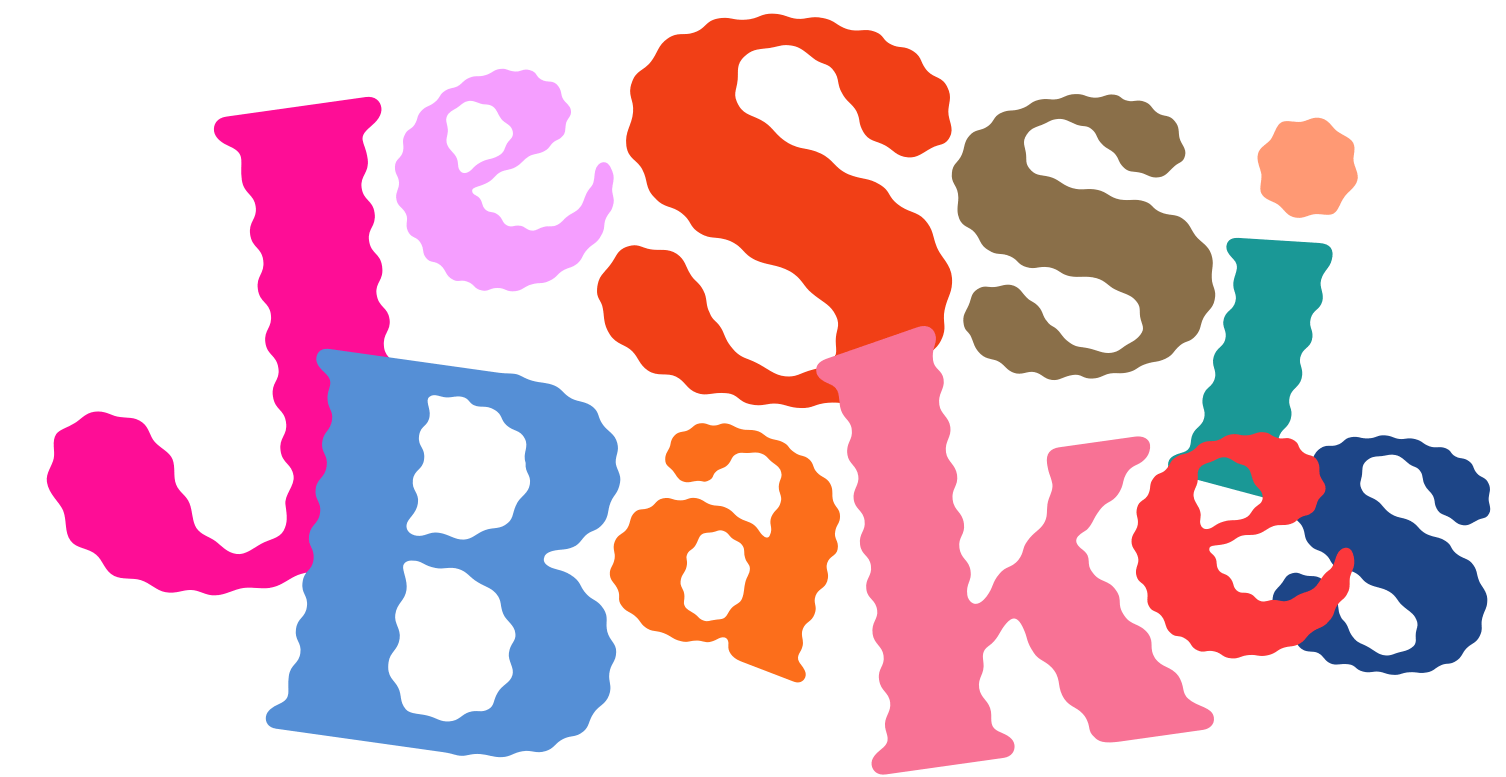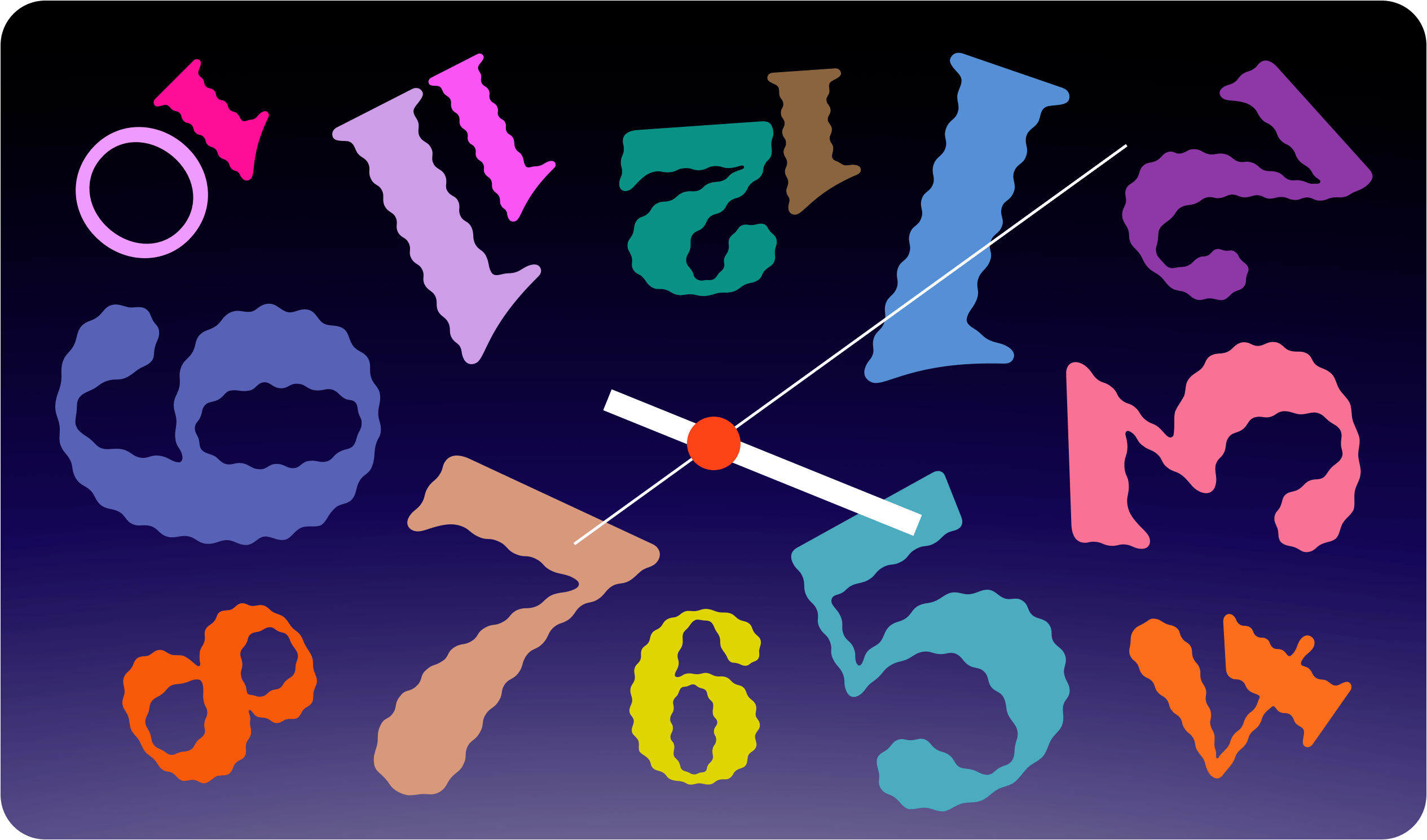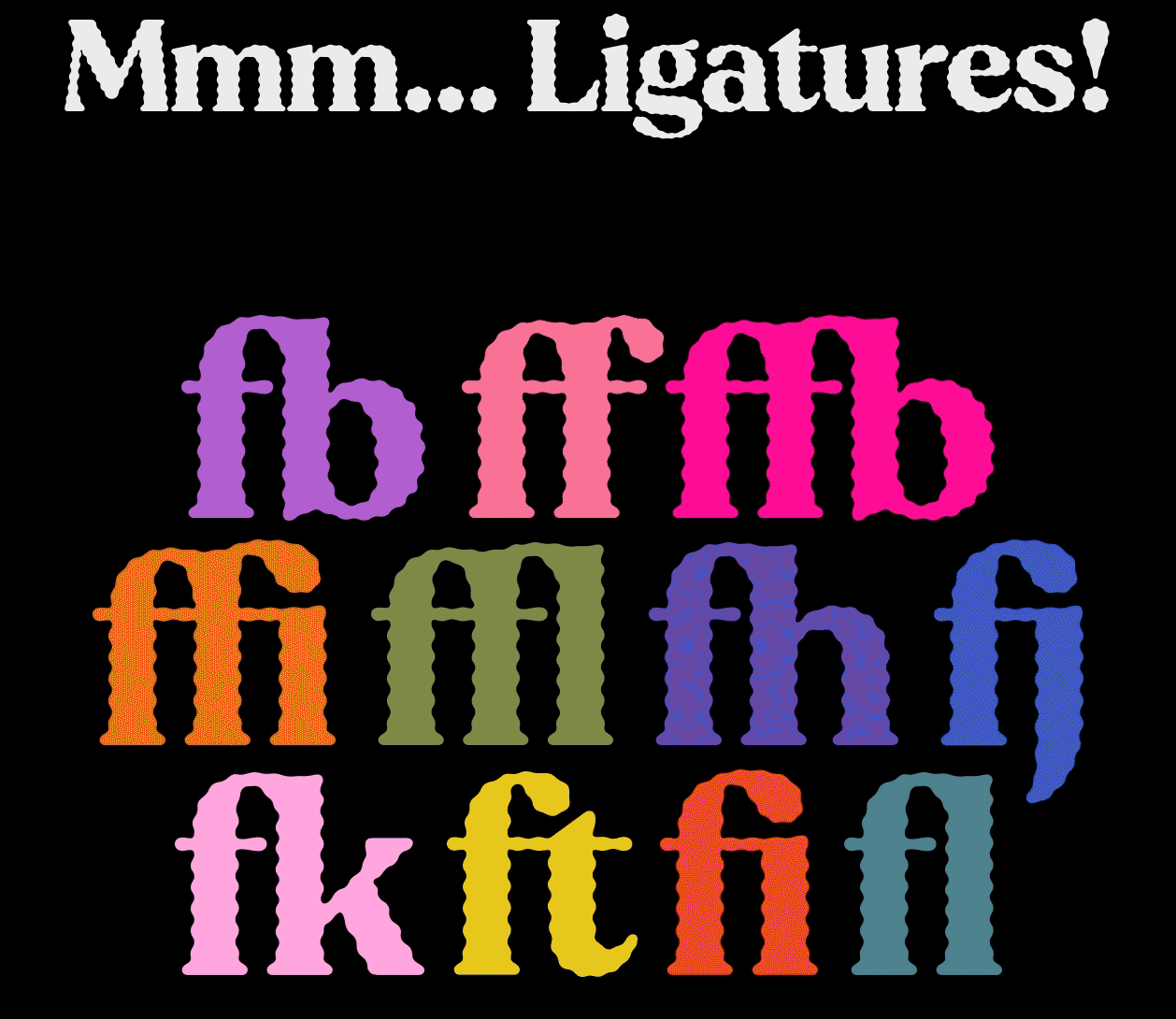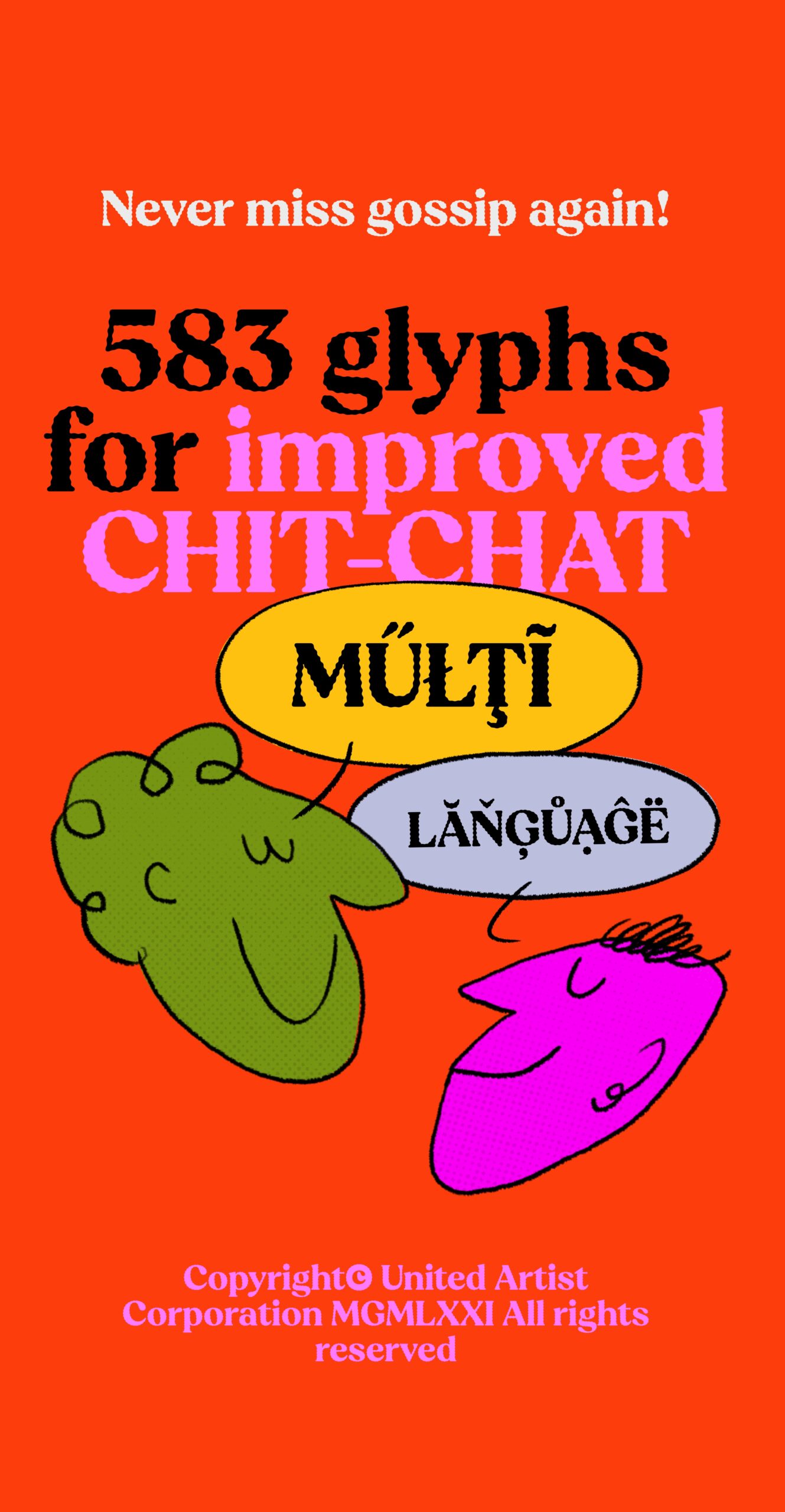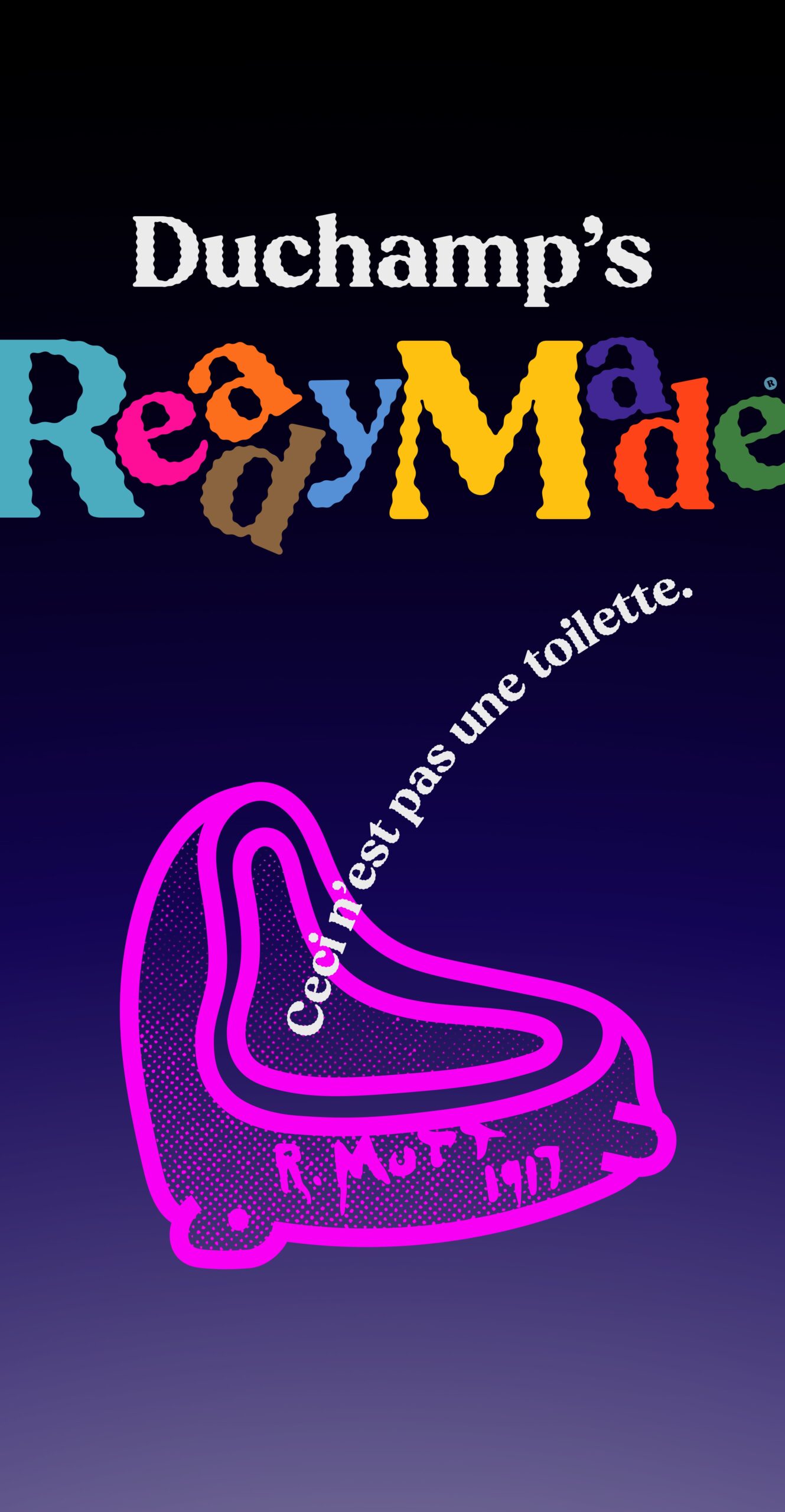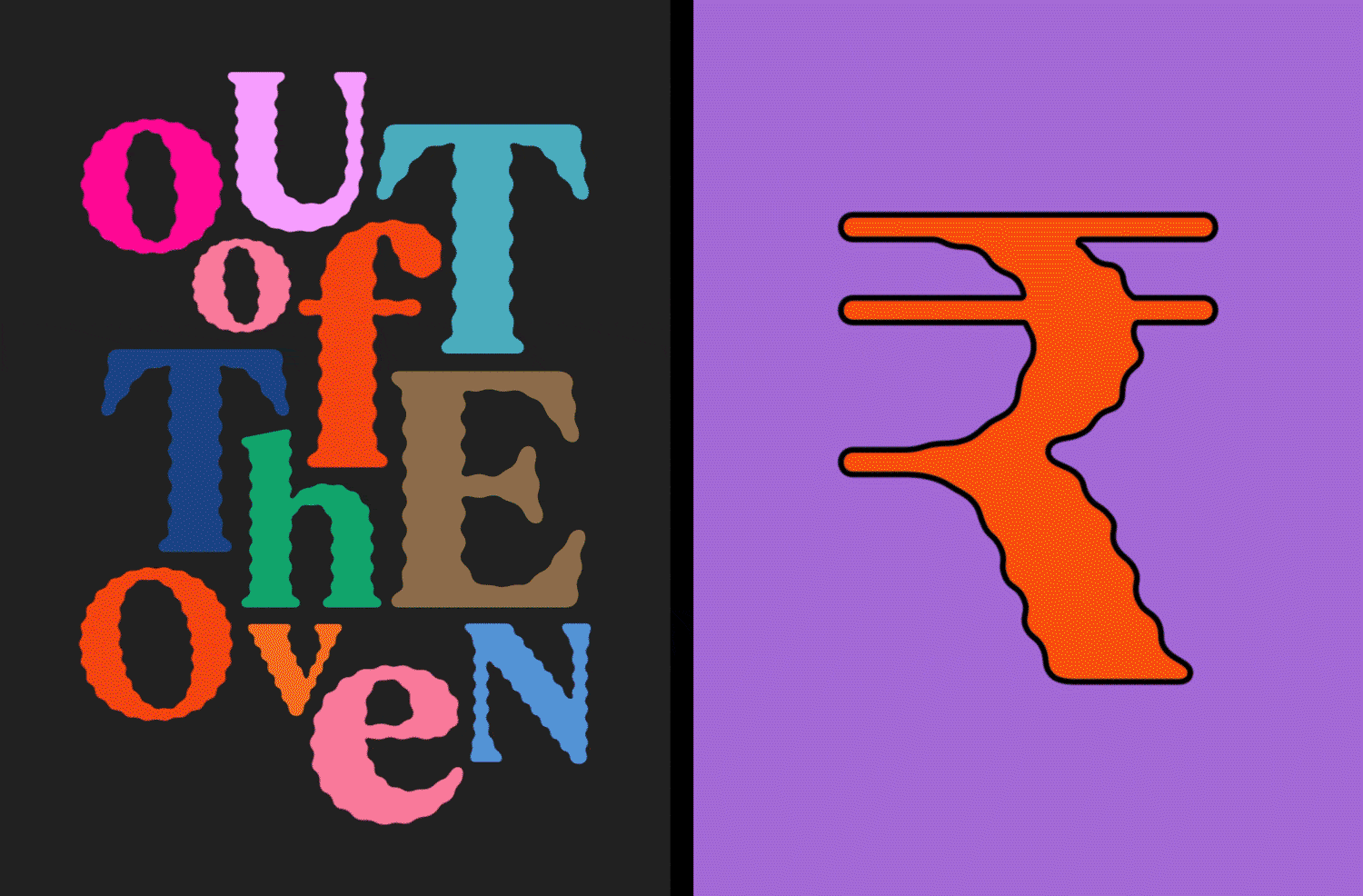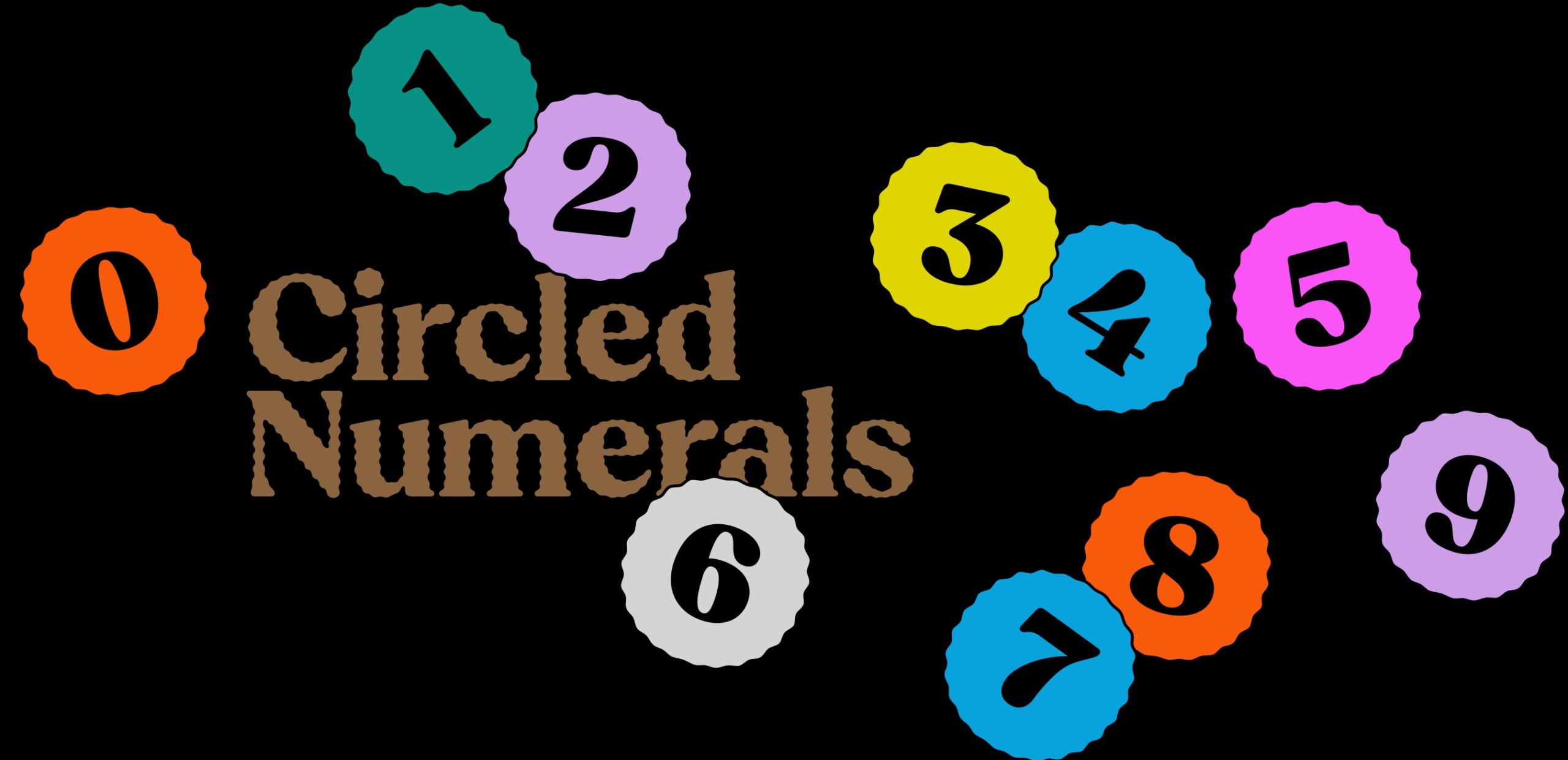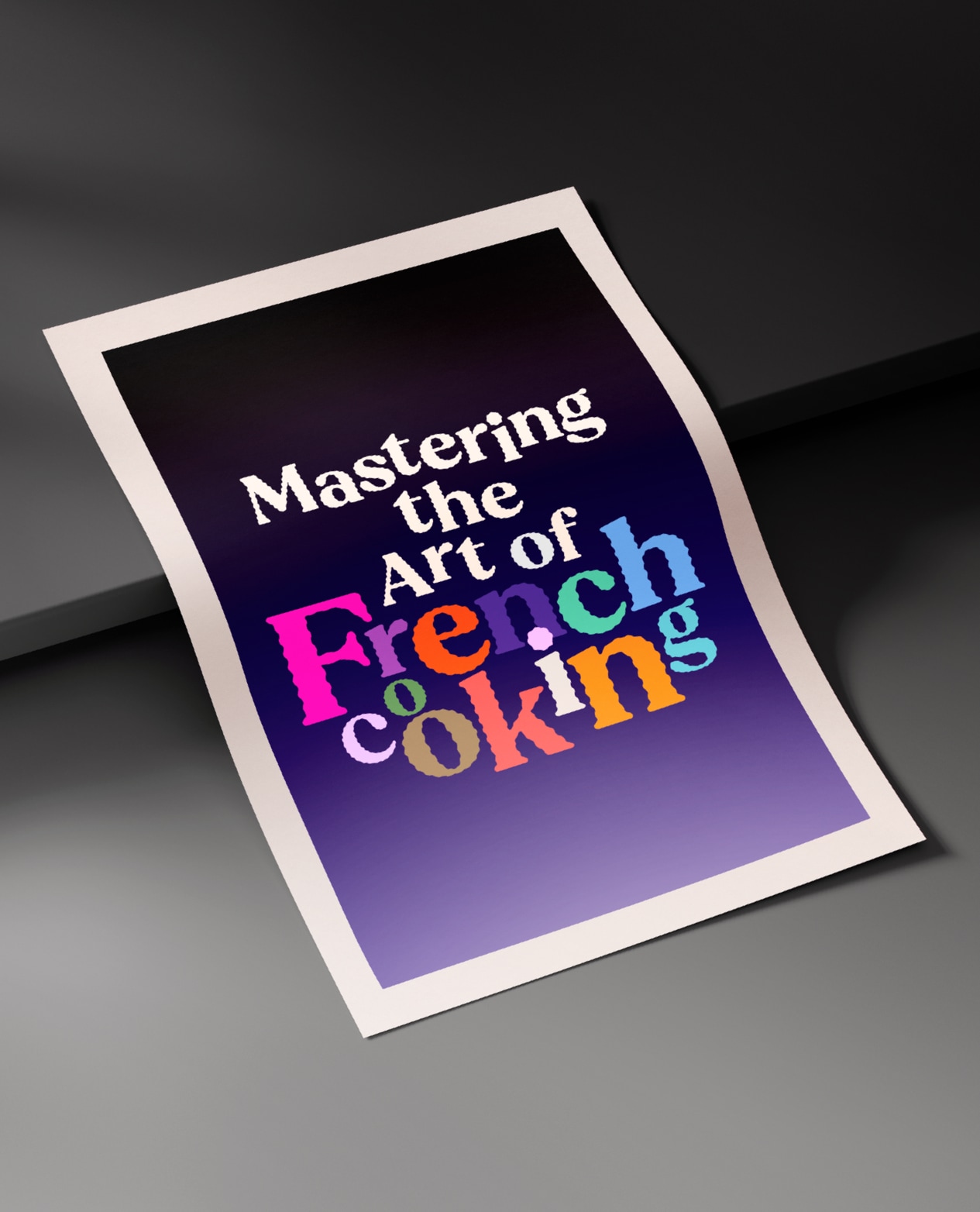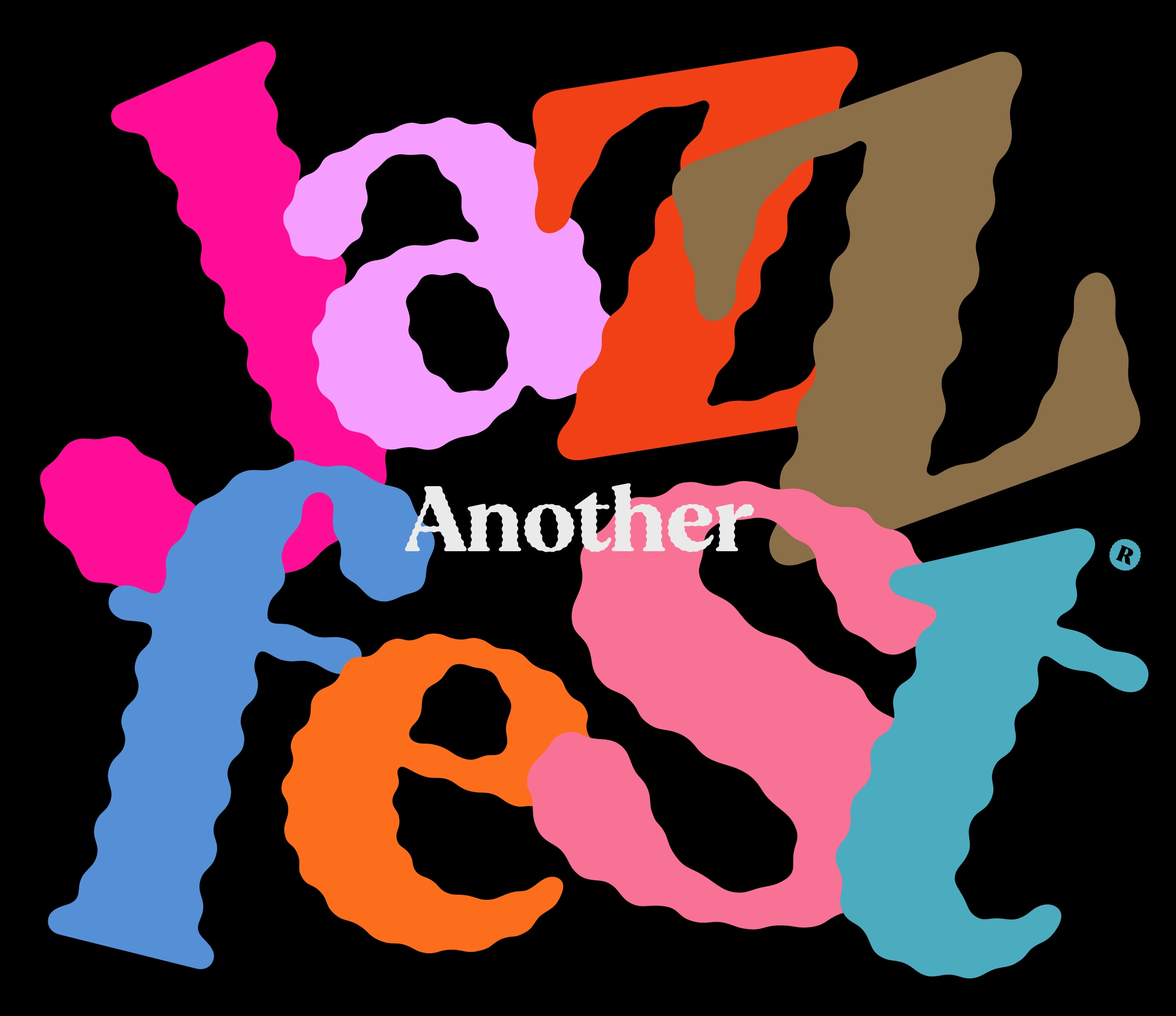
Display font inspired by the warm cooking scenes in '80s romantic comedies.
Jessi font family has a new member!
Jessi Bakes is a display typeface inspired by the warm, nostalgic charm of home cooking scenes in '80s romantic comedies. Its playful style makes it perfect for branding, packaging, and any creative projects.
With over 580 glyphs, Jessi Bakes supports more than 100 languages, including basic Greek, and features ligatures, old-style and circled numerals among other OpenType features.